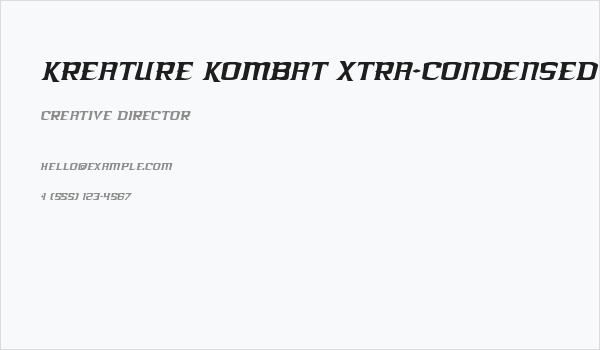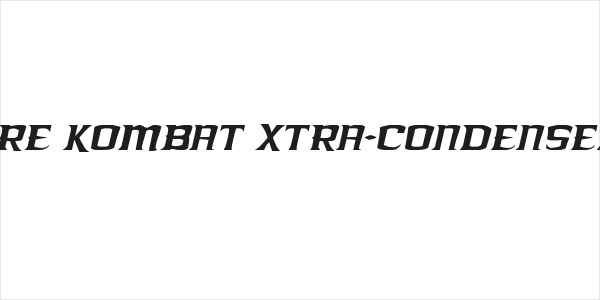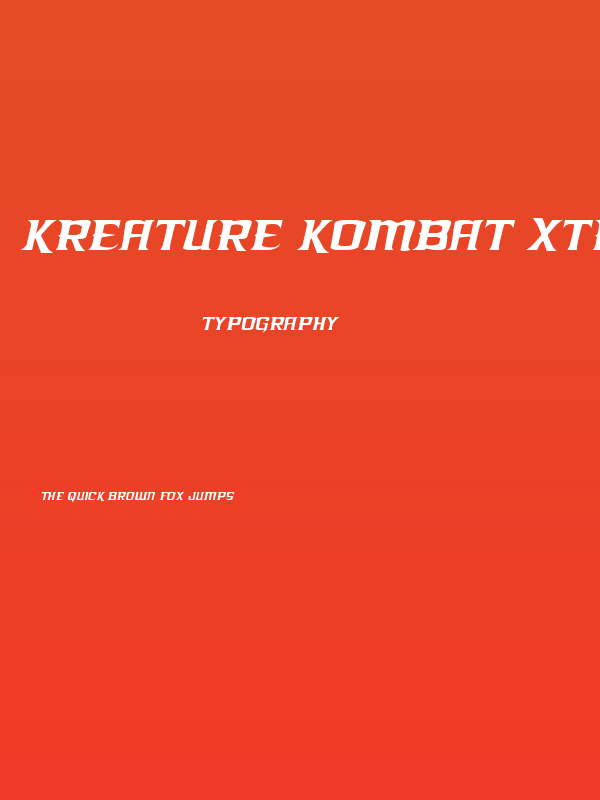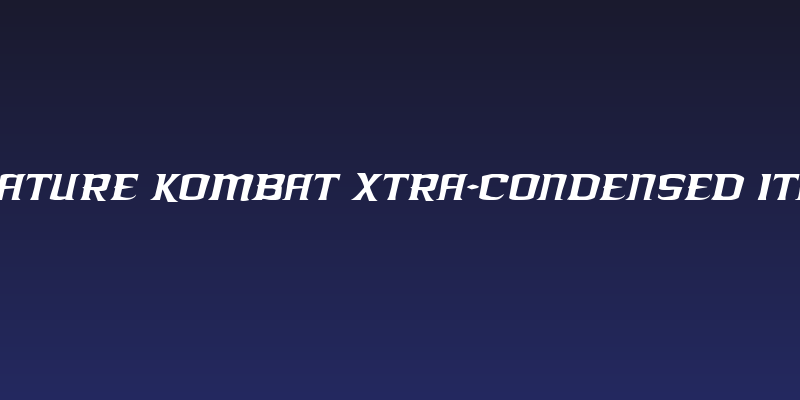
Kreature Kombat Xtra-Condensed Italic Font
Kreature Kombat Xtra-Condensed Italic Description
This font features a bold and dynamic design with sharp, angular edges and a distinct italic slant. The characters are tightly condensed, giving a sense of urgency and movement. The uppercase and lowercase letters maintain a consistent style, with exaggerated serifs and a futuristic appearance. Numbers and special characters are equally stylized, enhancing the overall aggressive and energetic feel. The font's unique style makes it stand out, suitable for projects that require a strong visual impact.
| Proposed Projects | Ideal for video game titles, movie posters, sports branding, and any project needing a bold, energetic typeface. |